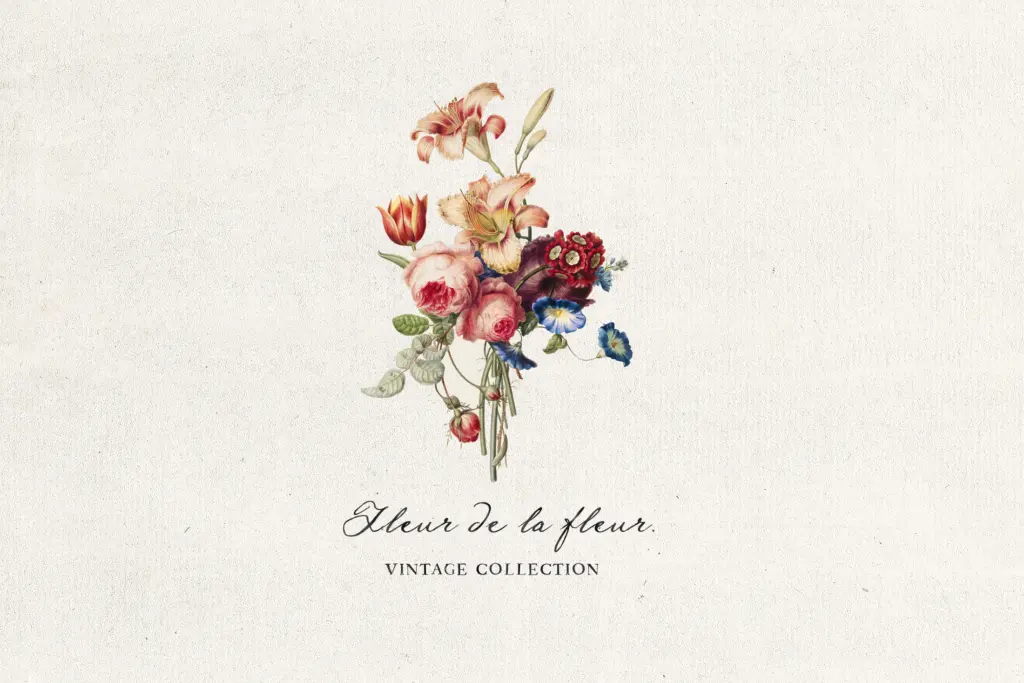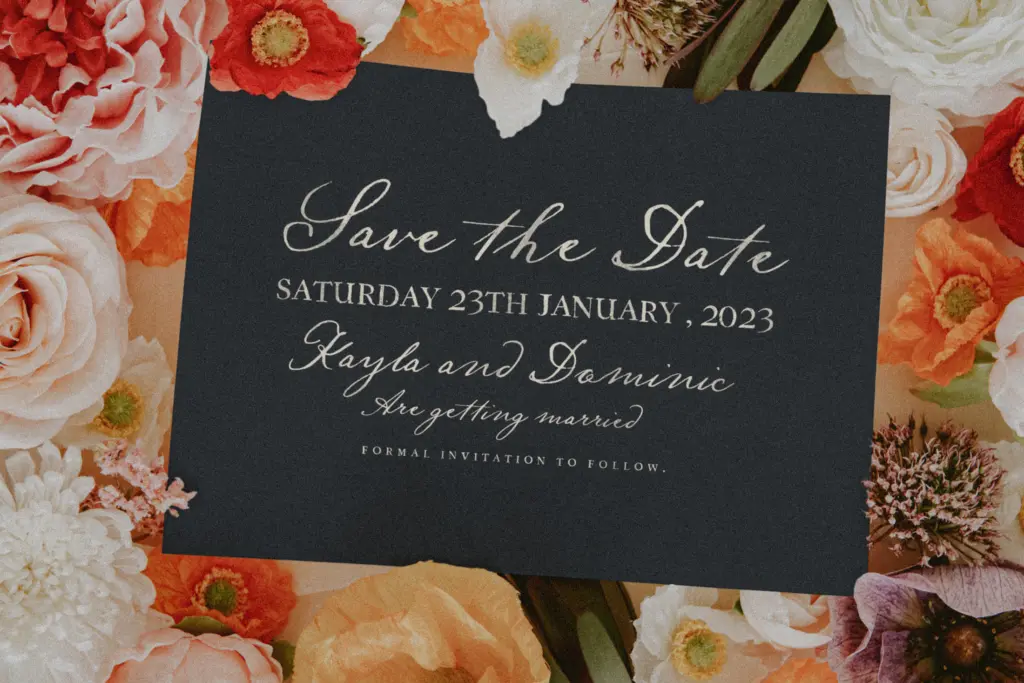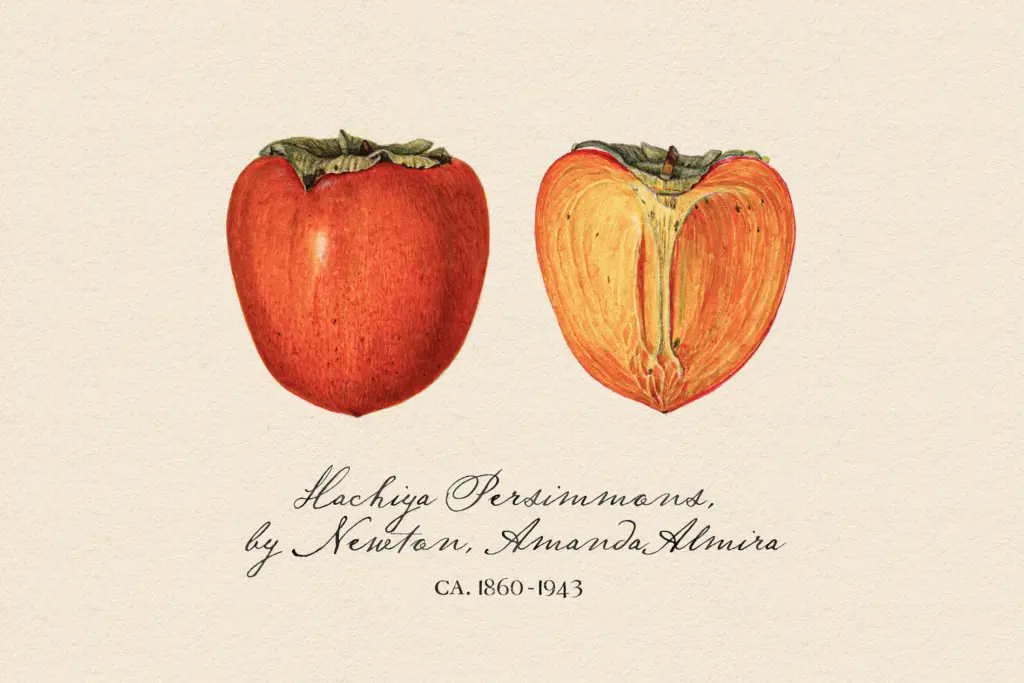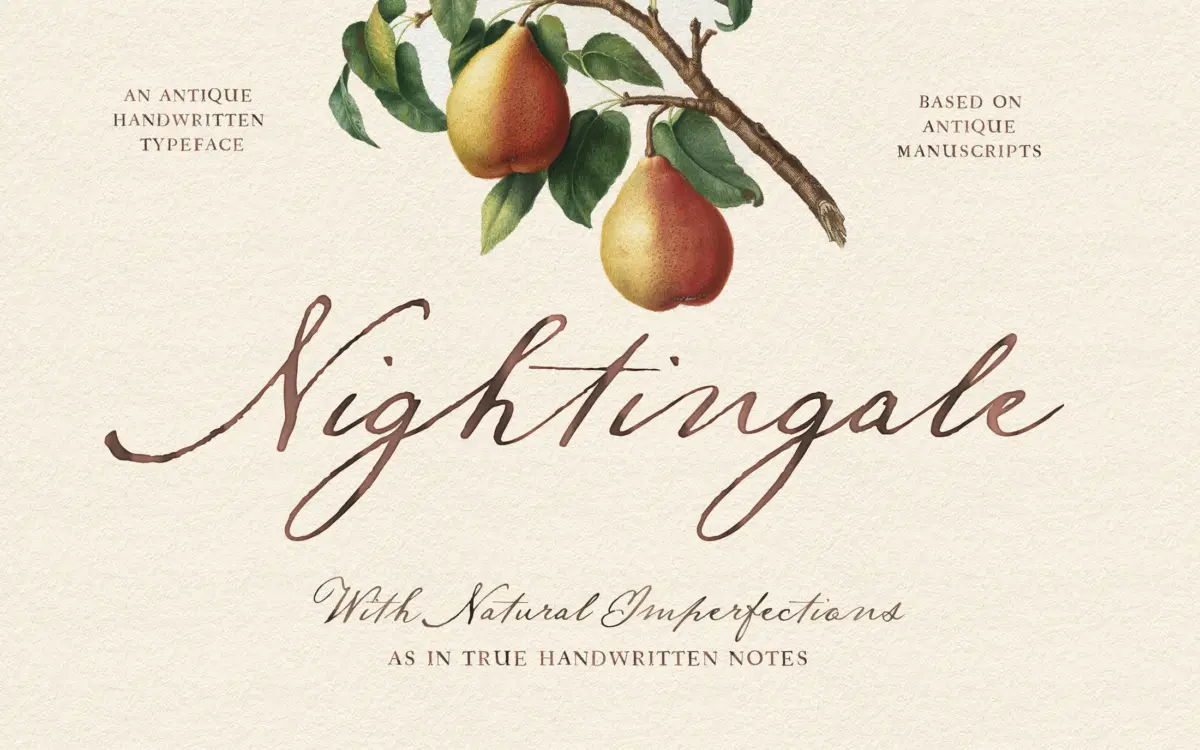
Nightingale Script pulls from old manuscripts and handwritten correspondence, and it wears that reference plainly. The strokes carry the variable pressure of a quill or dip pen: thick where the nib pauses, thin and slightly ragged where it lifts. Nicky Laatz has left in the wobble that comes from writing by hand rather than smoothing it into a regular script skeleton, and that’s the whole point of the design. Letters lean forward with an inconsistent rhythm, joins between letters are loose rather than mechanically identical, and a few strokes overshoot their baseline the way real ink does.
This is a deliberately imperfect script, not a polished calligraphic one. If you want a script that looks drawn with a ruler and a steady hand, this isn’t it. If you want something that looks like it was pulled from a ledger or a letter found in an attic, it delivers that convincingly.
The font includes alternate forms for letters that tend to repeat awkwardly in a script face — the brief points to alternate ‘t’ and ‘y’ specifically — along with bonus ligatures, accessed through OpenType features in apps that support them. That matters here more than in a lot of script fonts, because the whole appeal rests on irregularity; without alternates, repeated letters within a word would flatten the illusion of handwriting into an obvious repeating pattern. Using the alternates and ligatures is not optional decoration — it’s necessary to keep the antique effect convincing across a full line of text.
Because this is a connecting script built on inconsistency, it needs an app that actually renders OpenType features, and it needs a designer willing to swap letters by hand where the automatic substitution doesn’t sit right next to its neighbours. This is not a font you drop into a basic text box and expect to look finished.
At display sizes — signage, packaging labels, invitation headers, logotypes for anything trading on heritage or provenance — Nightingale Script does real work. It suits wine labels, apothecary-style packaging, wedding stationery going for an old-world rather than a modern-minimal feel, and editorial treatments where a single word or short phrase needs to look handwritten and aged rather than crafted and contemporary.
It is not built for body copy or long-form setting. The irregular baseline and variable stroke weight that make it convincing at large sizes will fight legibility the moment you shrink it down to a paragraph. Keep it to short phrases, names, headers — a handful of words rather than sentences. Pairing it with a plain serif or sans for supporting text will do more for the finished piece than trying to make the script carry a whole layout on its own.
- Convincing quill-and-ink texture with real variation in stroke weight and baseline
- Alternate letterforms and ligatures address the repetition problem common in script fonts
- Well suited to heritage, apothecary, and vintage-leaning branding work
- Legibility drops fast below display sizes, so it's unusable for running text
- Requires an application with OpenType feature support and manual tweaking to look its best
Nightingale Script is a convincing antique hand for short display text — labels, headers, invitations — where its deliberate roughness reads as authenticity rather than error. It needs the alternates and ligatures actually used to hold that illusion together, and it has no business being set as body copy. Buy it for what it is: a mood-setting display script, not an all-purpose workhorse.